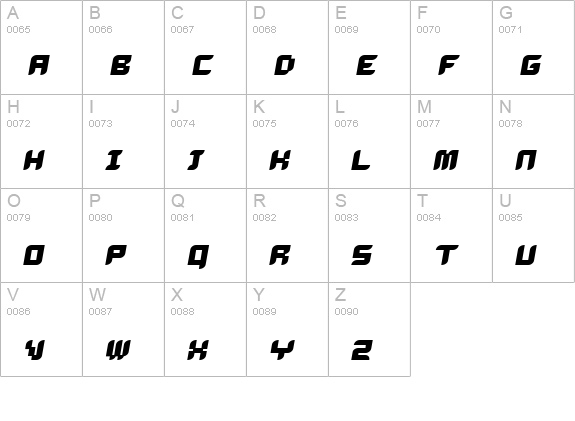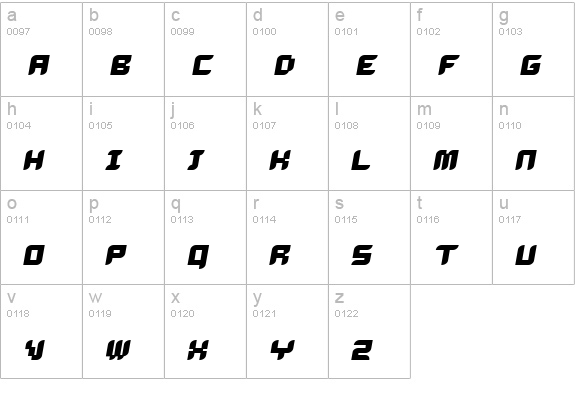
Dalila Bold Oblique Font Details
Dalila Bold Oblique is a strong, high-contrast, italic variant in the Dalila typeface family \xE2\x80\x94 well suited to headlines, attention-grabbing titles, and strong calls-to-action.
Dalila Bold Oblique font is a stunning and versatile typeface that exudes elegance and sophistication. Its bold and slanted design adds a touch of modernity to any project, making it perfect for both digital and print media. With its clean lines and distinctive letterforms, Dalila Bold Oblique font is sure to capture attention and make a lasting impression. Whether used for headlines, logos, or body text, this font commands attention and conveys a sense of confidence. One of the greatest qualities of Dalila Bold Oblique font is that it is freely available to download at FontsMarket.com. This means that designers and creatives can access this exceptional font without any cost, making it an ideal choice for those on a budget or anyone looking for high-quality typography at no expense. Dalila Bold Oblique font offers a wide range of characters and ligatures, allowing for endless creative possibilities. Its smooth curves and sharp edges create a harmonious balance that is pleasing to the eye, while its bold weight adds impact and presence. Whether you are designing a website, creating a brochure, or working on a branding project, Dalila Bold Oblique font will elevate your work to new levels of professionalism and style. Its versatility and timeless appeal make it suitable for a variety of design projects, from corporate to creative. Download Dalila Bold Oblique font for free at FontsMarket.com and unlock its full potential. This font is a true gem, offering exceptional quality and style without any cost. Don't miss out on the opportunity to enhance your designs with this remarkable typeface.